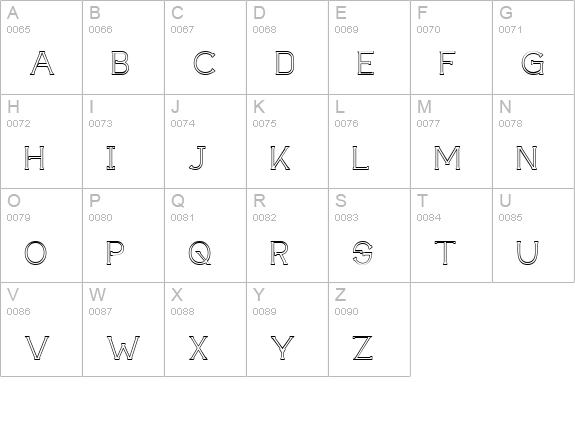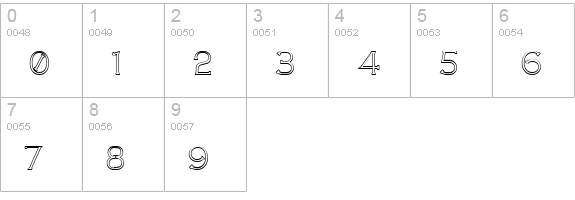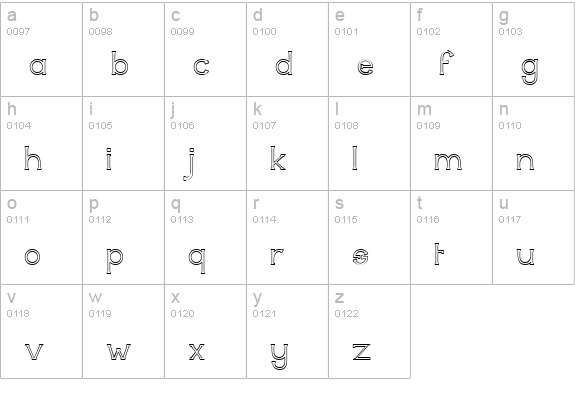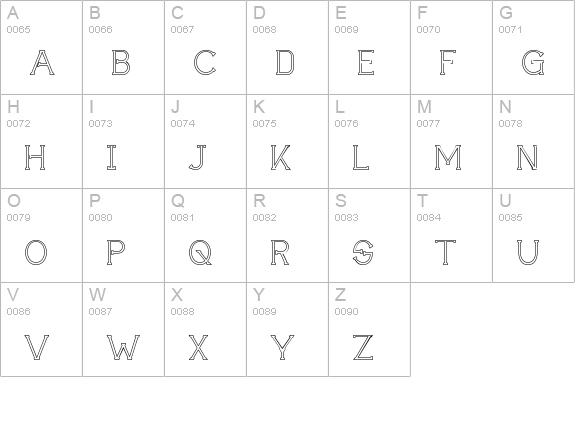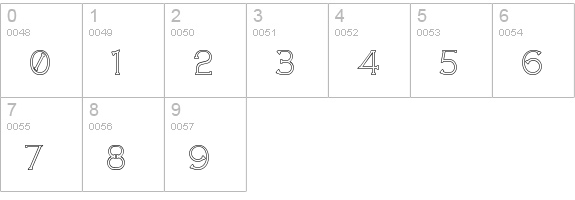
Technically Insane Outline font is a captivating and innovative typeface that will make your designs stand out from the crowd. Its unique and unconventional style is perfect for projects that require a touch of madness and creativity. The font's intricate outlines give it a futuristic and edgy feel, making it ideal for sci-fi, gaming, and technology-themed designs. Its sharp angles and bold lines create a sense of energy and movement, guaranteeing that your message will be conveyed with impact. What makes Technically Insane Outline font even more appealing is that it is available for free. You heard it right - this amazing font can be downloaded at no cost from FontsMarket.com. This means that you can unleash your creativity without breaking the bank. Whether you are working on a logo, poster, or website design, Technically Insane Outline font will add a touch of uniqueness and eccentricity to your project. Its versatility allows it to be used in both digital and print media, ensuring that your message will be delivered with style and flair. So, why settle for ordinary when you can embrace the extraordinary? Download Technically Insane Outline font today and let your imagination run wild. With its free availability at FontsMarket.com, you have nothing to lose and everything to gain. Get ready to showcase your creativity and leave a lasting impression on your audience with this one-of-a-kind typeface.